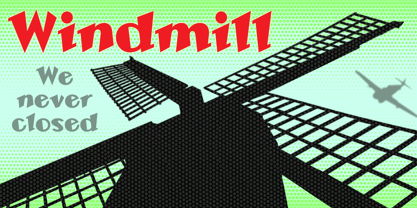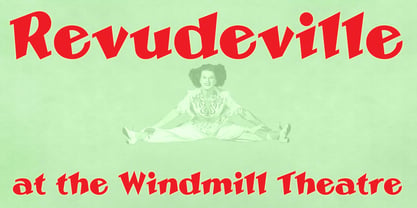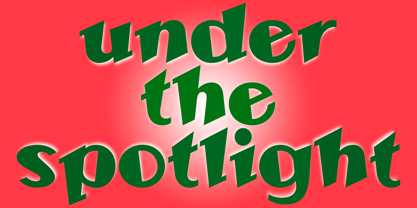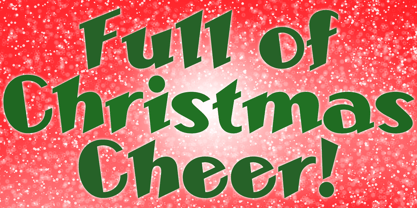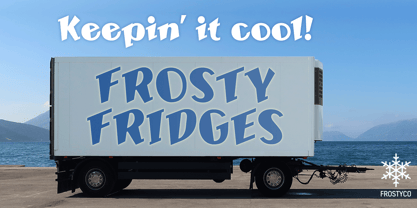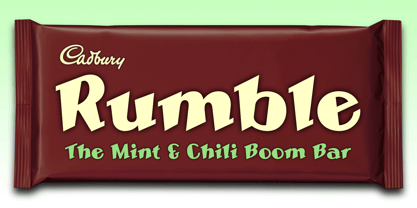
Revudeville
by K-Type
The Revudeville Font Family was designed by Keith Bates and published by K-Type. Revudeville contains 1 styles. More about this family
Revudeville is a lively, informal font based on cover lettering from a 1950s Windmill Theatre souvenir programme.